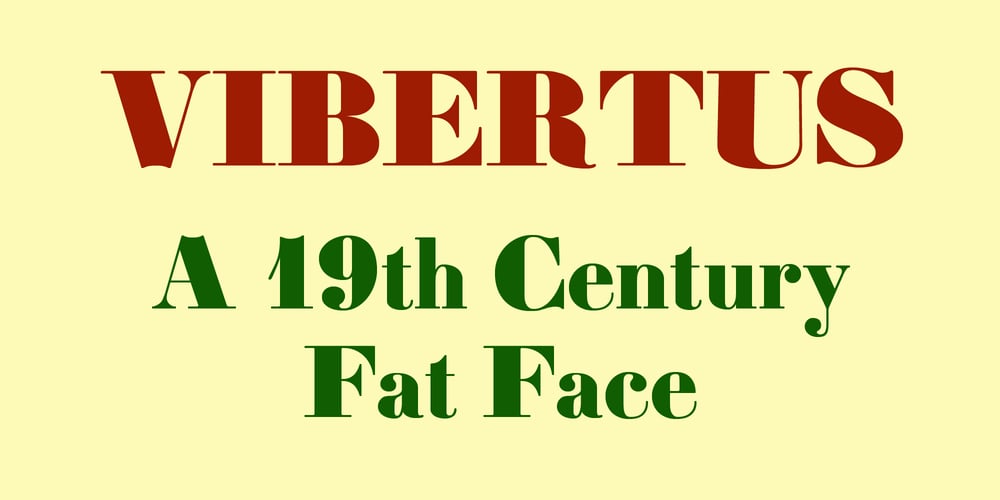
Vibertus
Vibertus font
Vibertus Font Family was designed by Lars Törnqvist and published by Cercurius. Vibertus contains 1 styles and family package options. A revival of “Gras Vibert”, a French fat face originally cast by the Didot typefoundry in Paris. It was cut in 1840 by Vibert, an engraver employed by the foundry. The capitals are heavier than the lowercase letters, and the characters g, k, y and & are rather peculiarly shaped, exaggerating the vertical stress. The font is designed for large sizes.